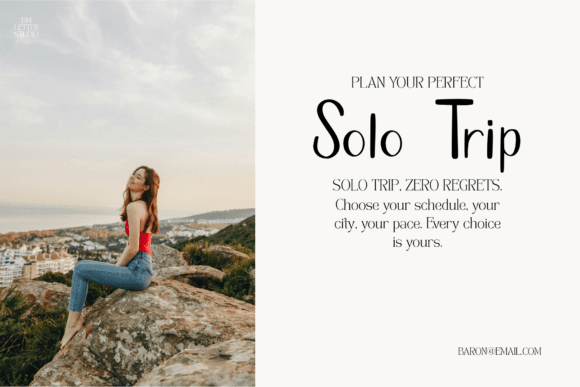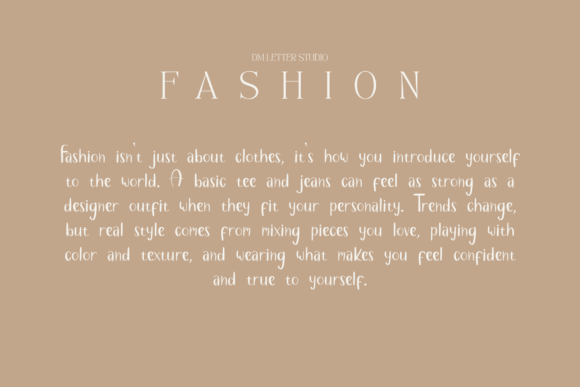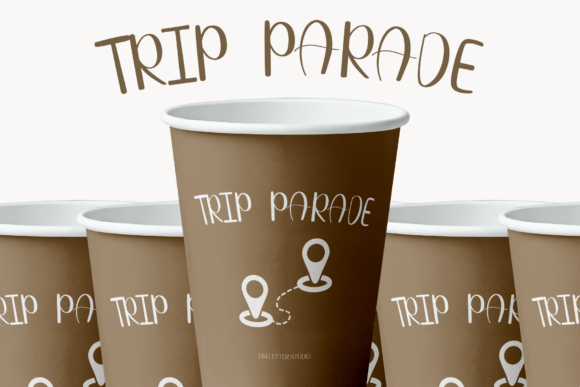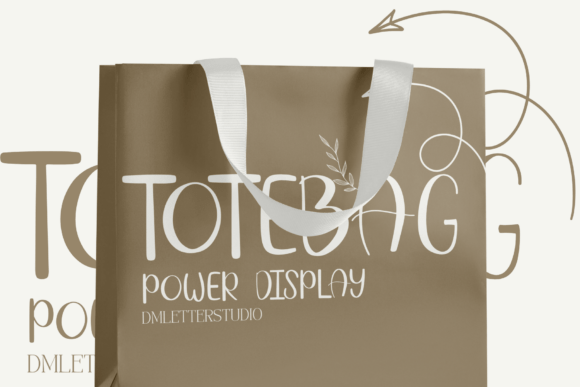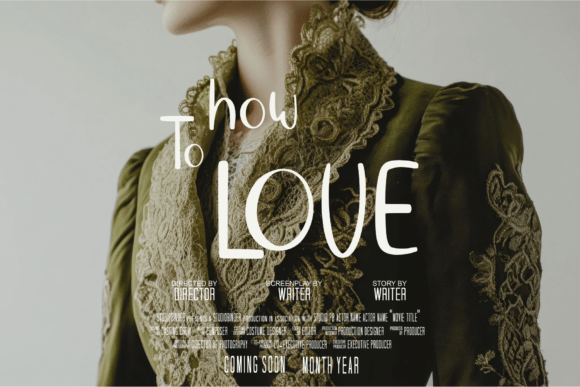
Introduction to Honeyquill Font
Meet Honeyquill Font is a warm, handwritten script with sweet, flowing curves.
Letters feel soft and friendly Strokes stay smooth, so your words read fast on invitations, logos, packaging, stickers, and thumbnails.
Key Features of Honeyquill Font
Why Choose Honeyquill Font?
Honeyquill Font offers exceptional quality and versatility, making it a valuable addition to your design toolkit. Whether you’re creating for personal projects or commercial use, Honeyquill Font delivers professional results.